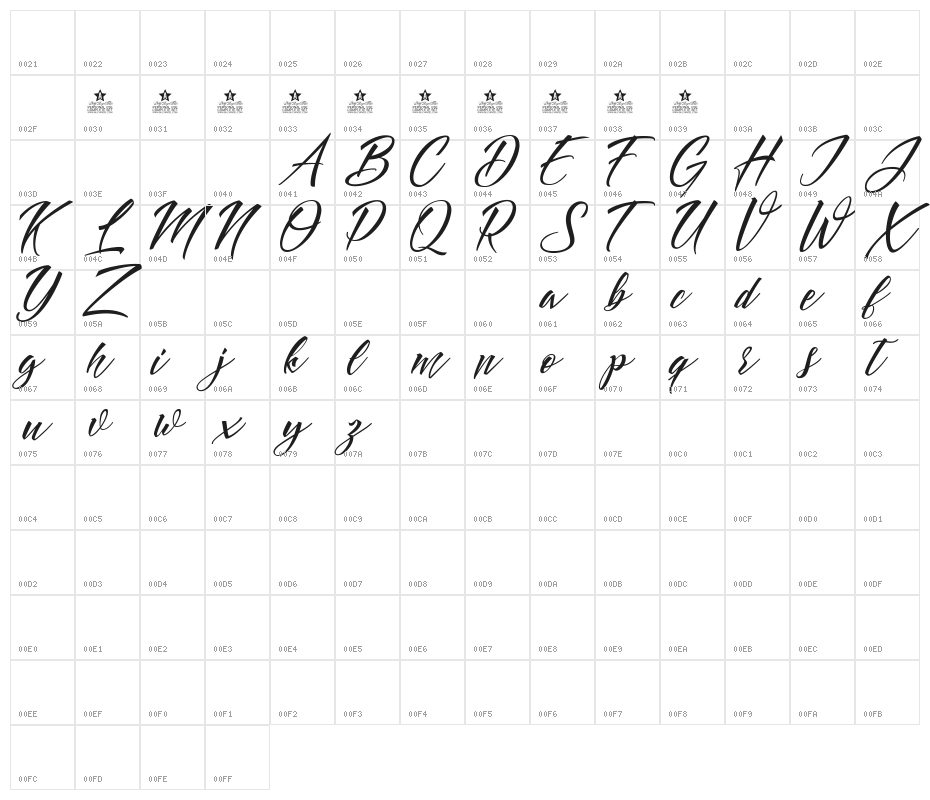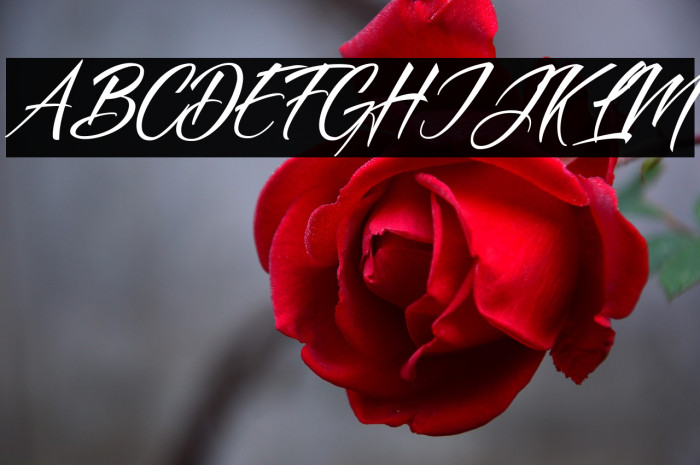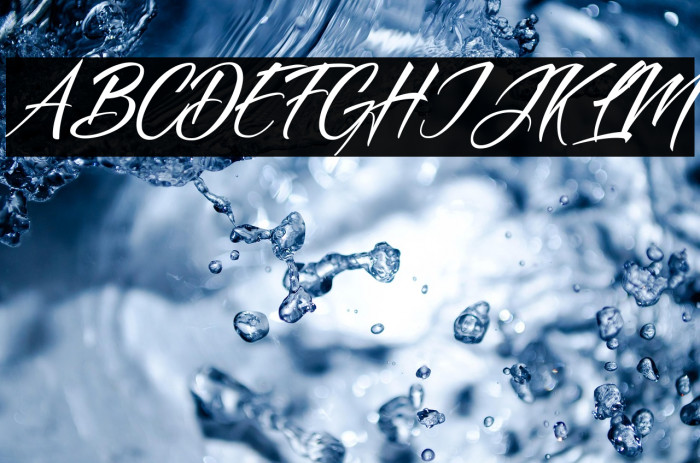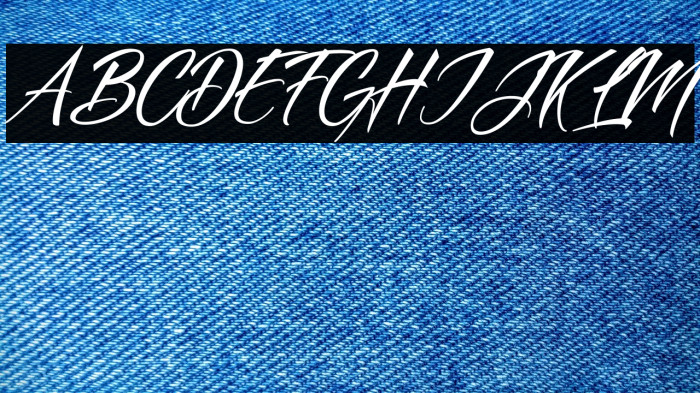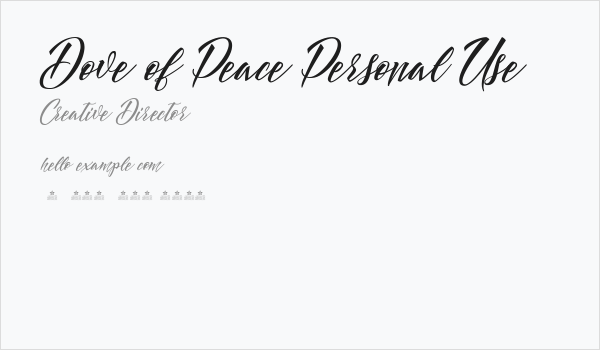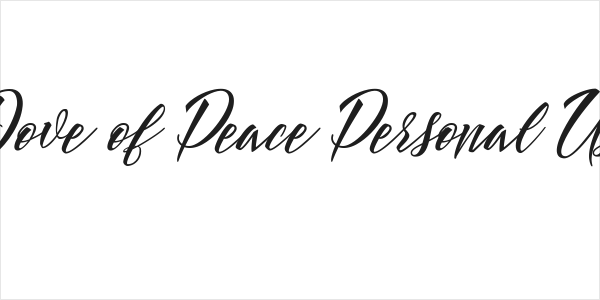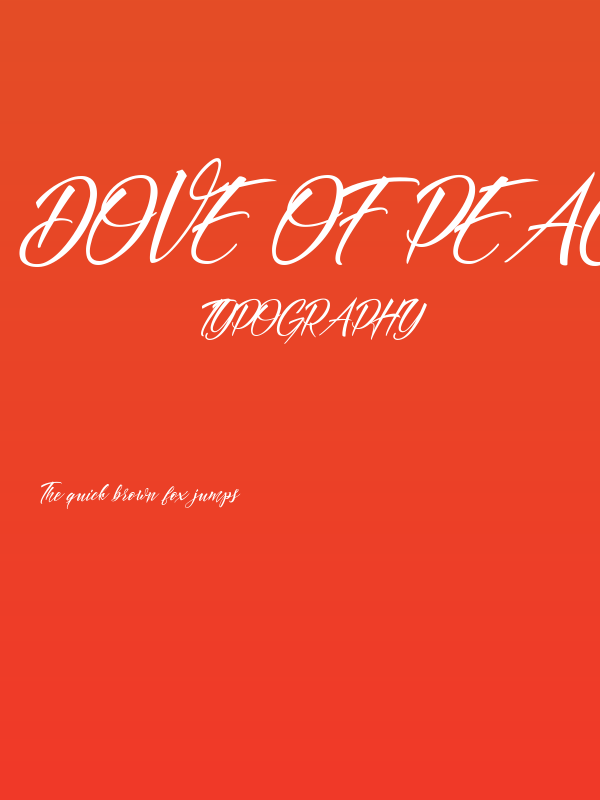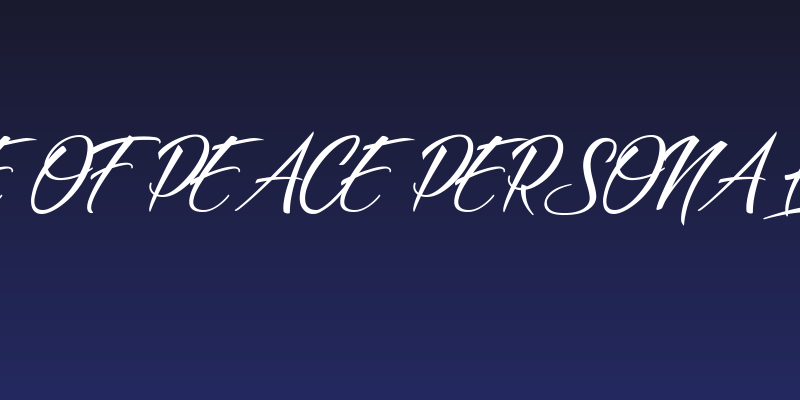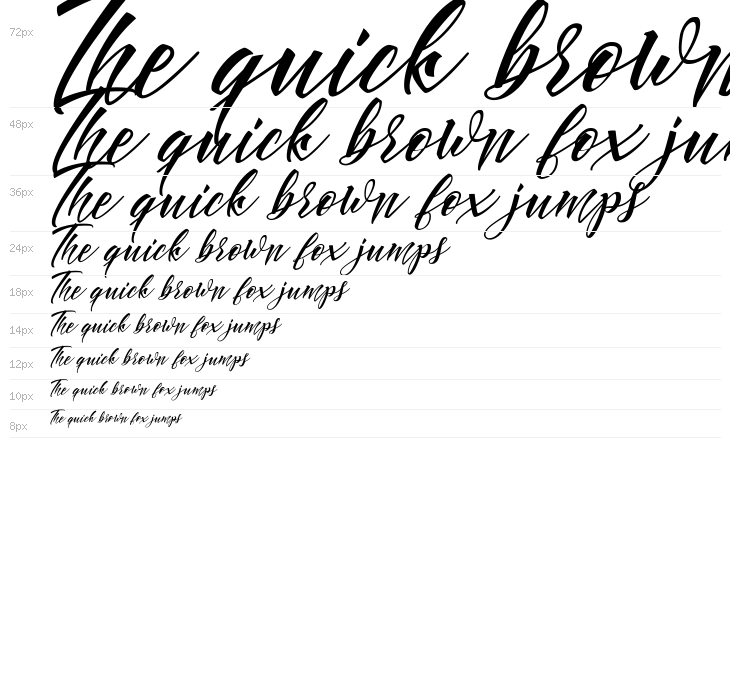
Dove of Peace Personal Use Font
Dove of Peace Personal Use Description
This font features an elegant and flowing script style, characterized by its cursive, handwritten appearance. The uppercase letters are bold and sweeping, with dramatic flourishes and loops that convey a sense of sophistication and grace. The lowercase letters maintain a consistent style, with smooth, connected strokes that enhance readability while preserving the artistic flair. The numbers and special characters are designed to match the overall aesthetic, providing a cohesive look across all elements. This font is perfect for projects that require a touch of elegance and personal expression.
| Overall Style | Elegant, Artistic |